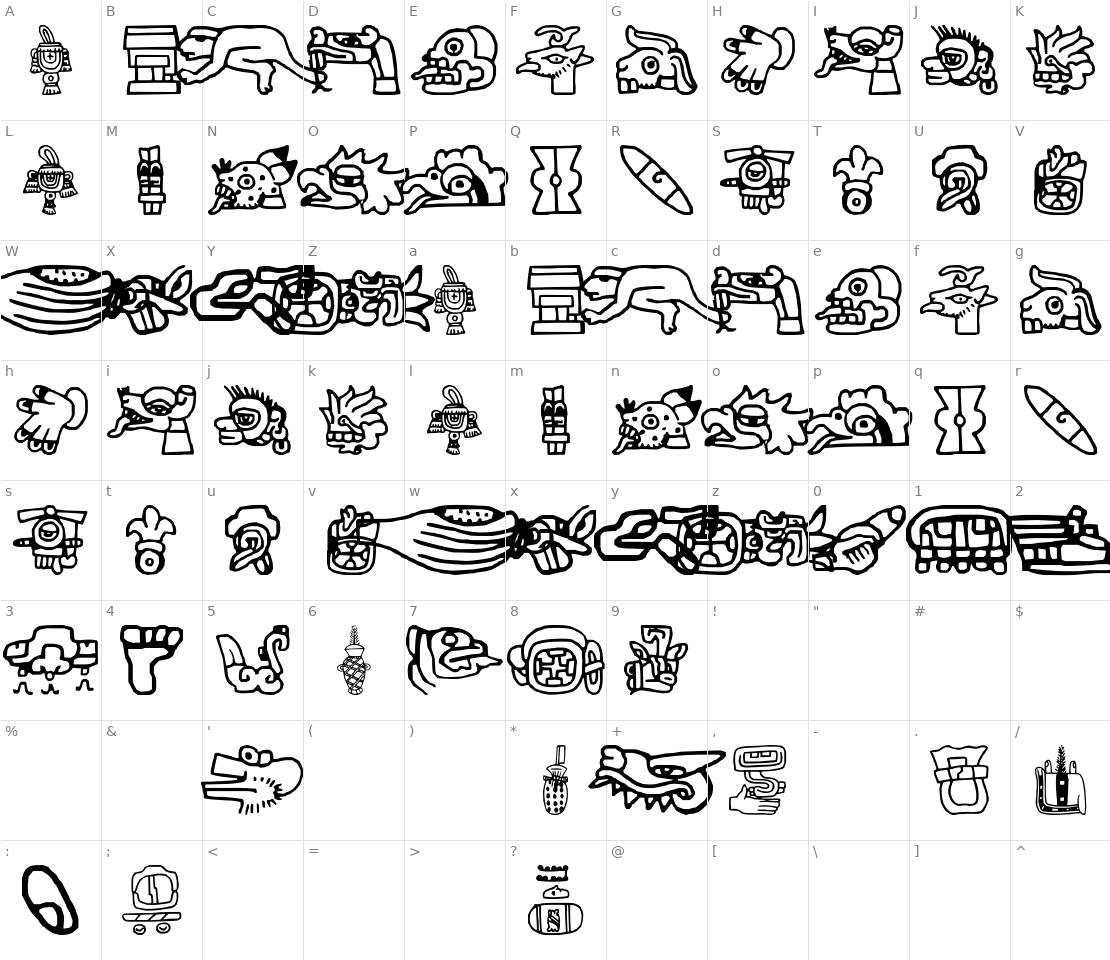
Aztec
Aztec is a decorative glyph font from No Images Fonts that replaces standard characters with symbols and motifs inspired by Mesoamerican art. The designs draw on Aztec and Mayan visual traditions, with angular, carved-looking forms that feel like they belong on a temple wall or codex. Useful for borders, ornamental elements, and themed design work where you need that ancient Central American aesthetic without sourcing individual illustrations.